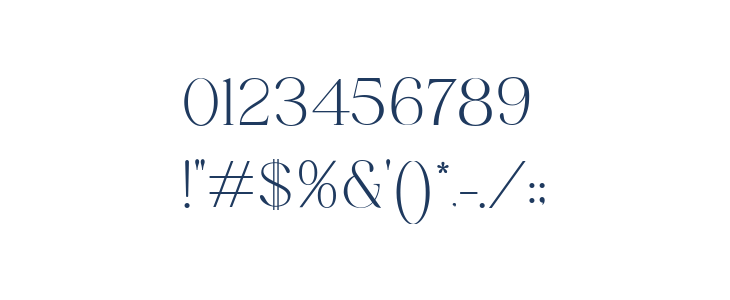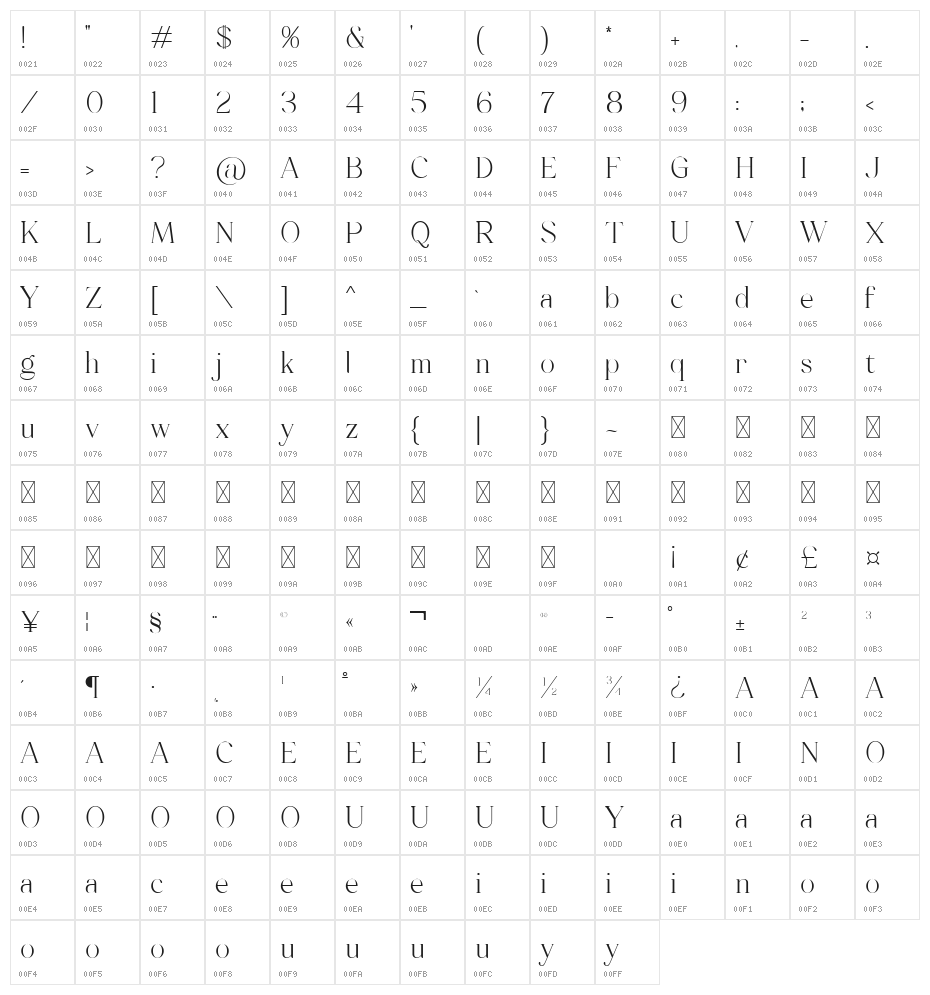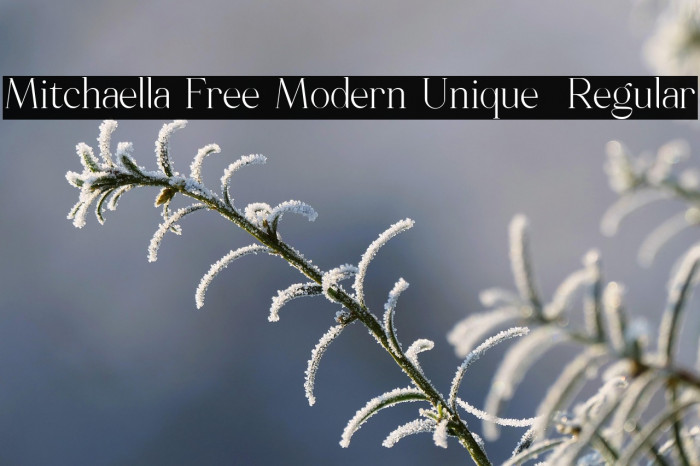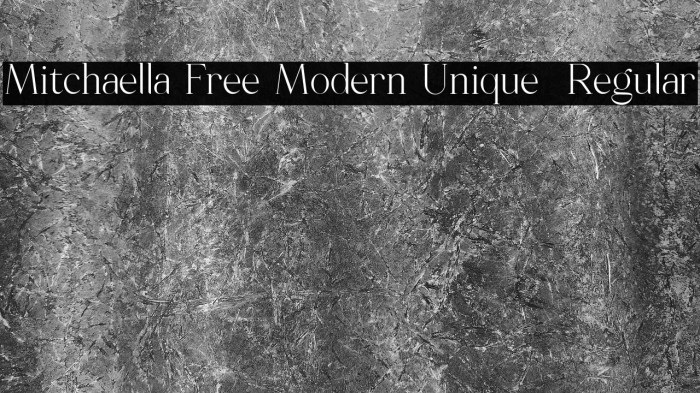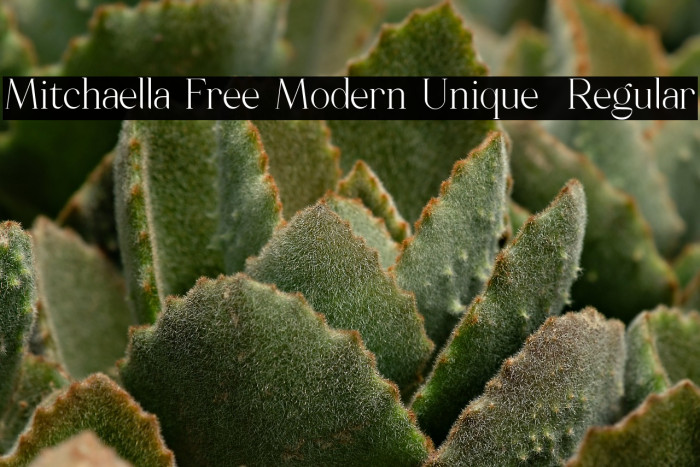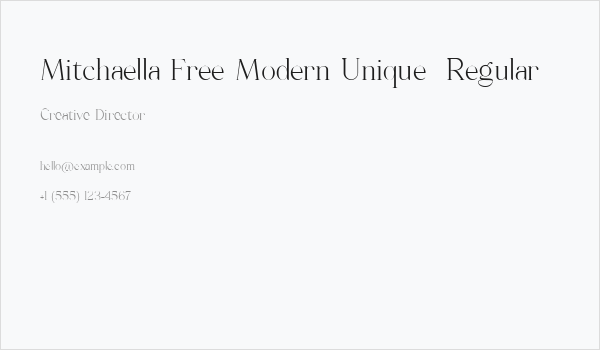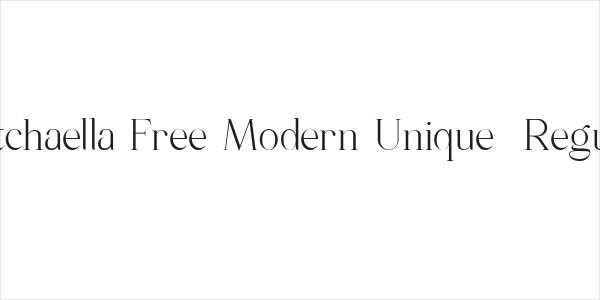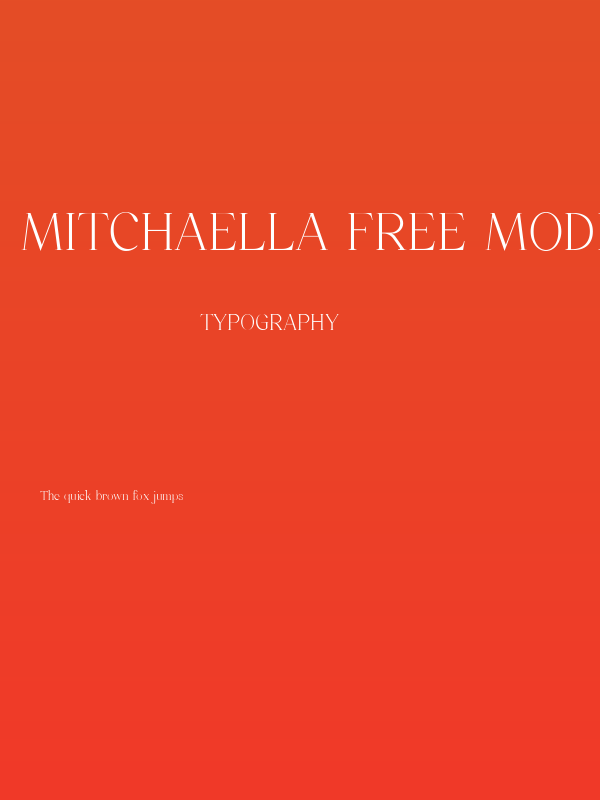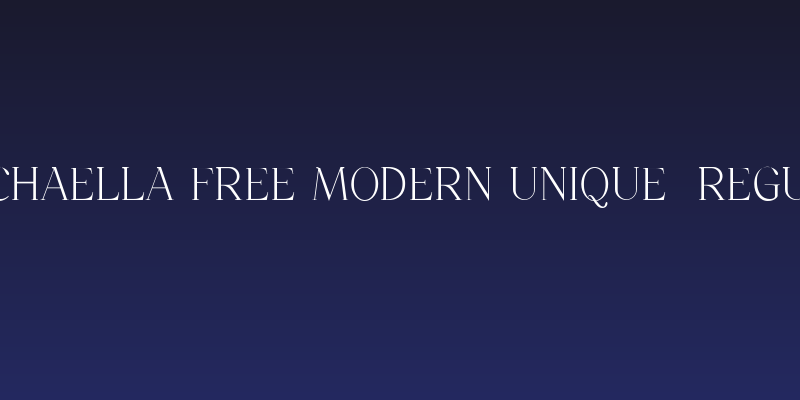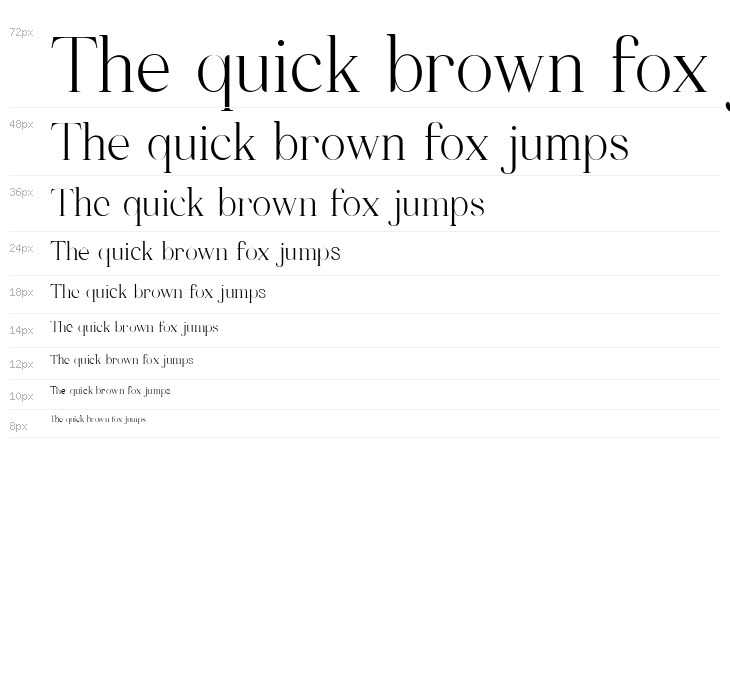
Mitchaella Free Modern Unique Regular Font
Mitchaella Free Modern Unique Regular Description
This font features a modern and elegant design with a unique flair. The uppercase letters are tall and slender, with a slight curvature that adds a touch of sophistication. The lowercase letters maintain a consistent style, with smooth curves and clean lines that enhance readability. The numerals are well-proportioned, matching the overall aesthetic of the font. Special characters are thoughtfully designed, ensuring they blend seamlessly with the rest of the typeface. This font's versatility makes it suitable for a variety of design projects.
Proposed ProjectsIdeal for branding, editorial design, invitations, and luxury product packaging.